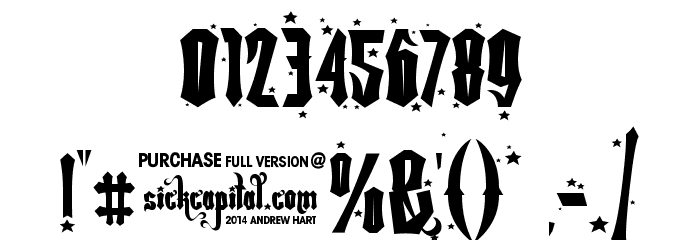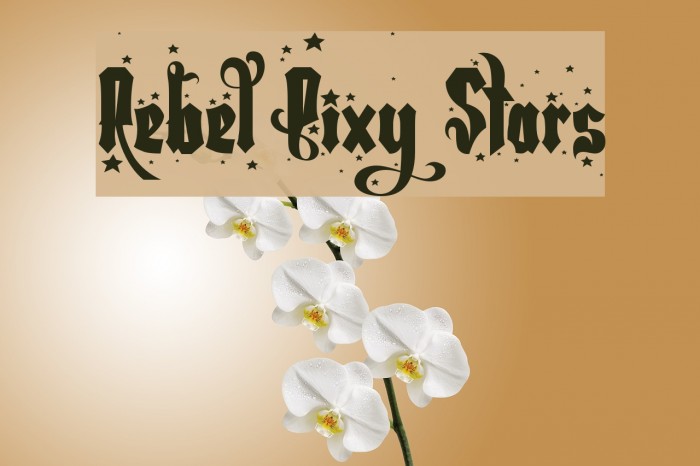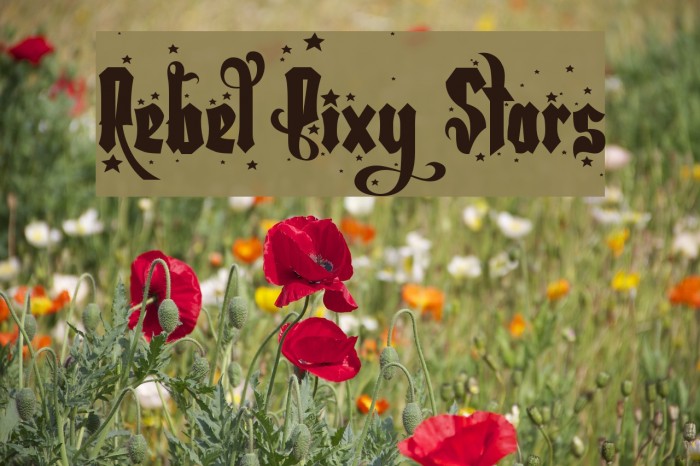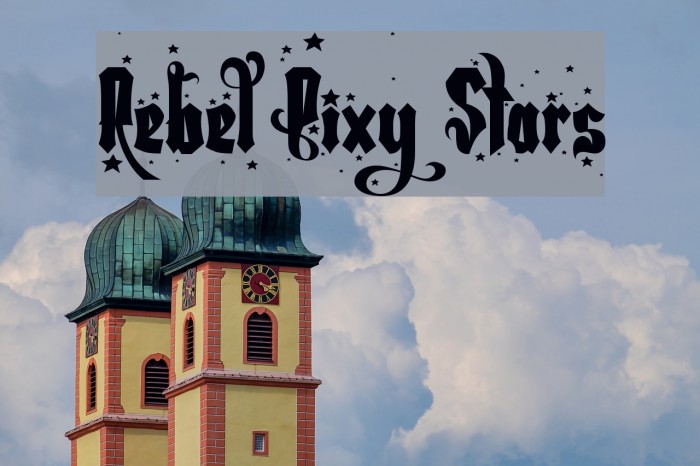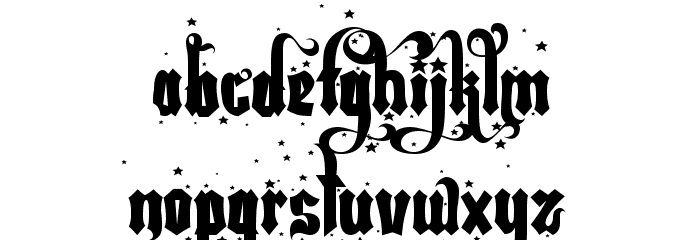
Rebel Pixy Stars Font
Rebel Pixy Stars Description
This font features a bold, decorative style with a strong blackletter influence. Each character is adorned with star-like embellishments, adding a whimsical and celestial touch. The uppercase letters are sharp and angular, while the lowercase letters incorporate more curves and flourishes, creating a dynamic contrast. The numbers maintain the bold and intricate design, ensuring consistency across all characters. Special characters are equally ornate, making this font suitable for eye-catching designs.
| Proposed Projects | Ideal for fantasy-themed posters, event invitations, album covers, or any project requiring a mystical or gothic aesthetic. |